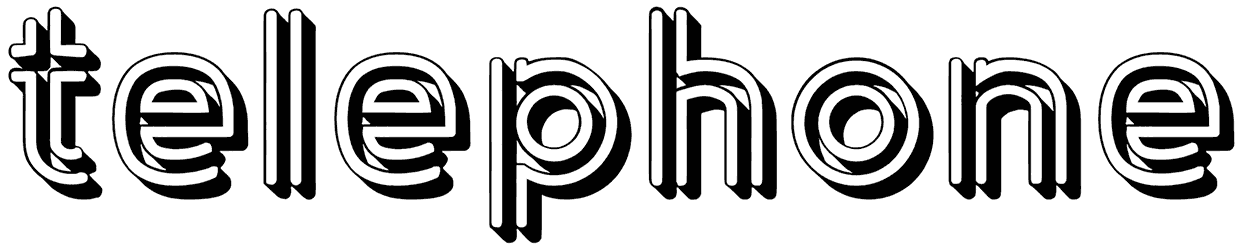
Telephone Font
What do you think about using a modern and technical face for your design promotion? Telephone is a decorative font with 3D and smooth letter style that is a unique choice to bold your words. There is no backup of capital letters, numbers, and punctuation marks, but this retro font can add a distinct mood to your creative projects, from logos to illustrations.